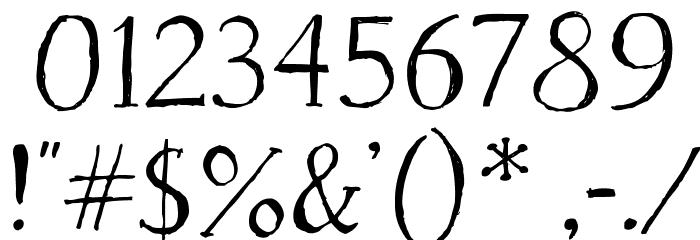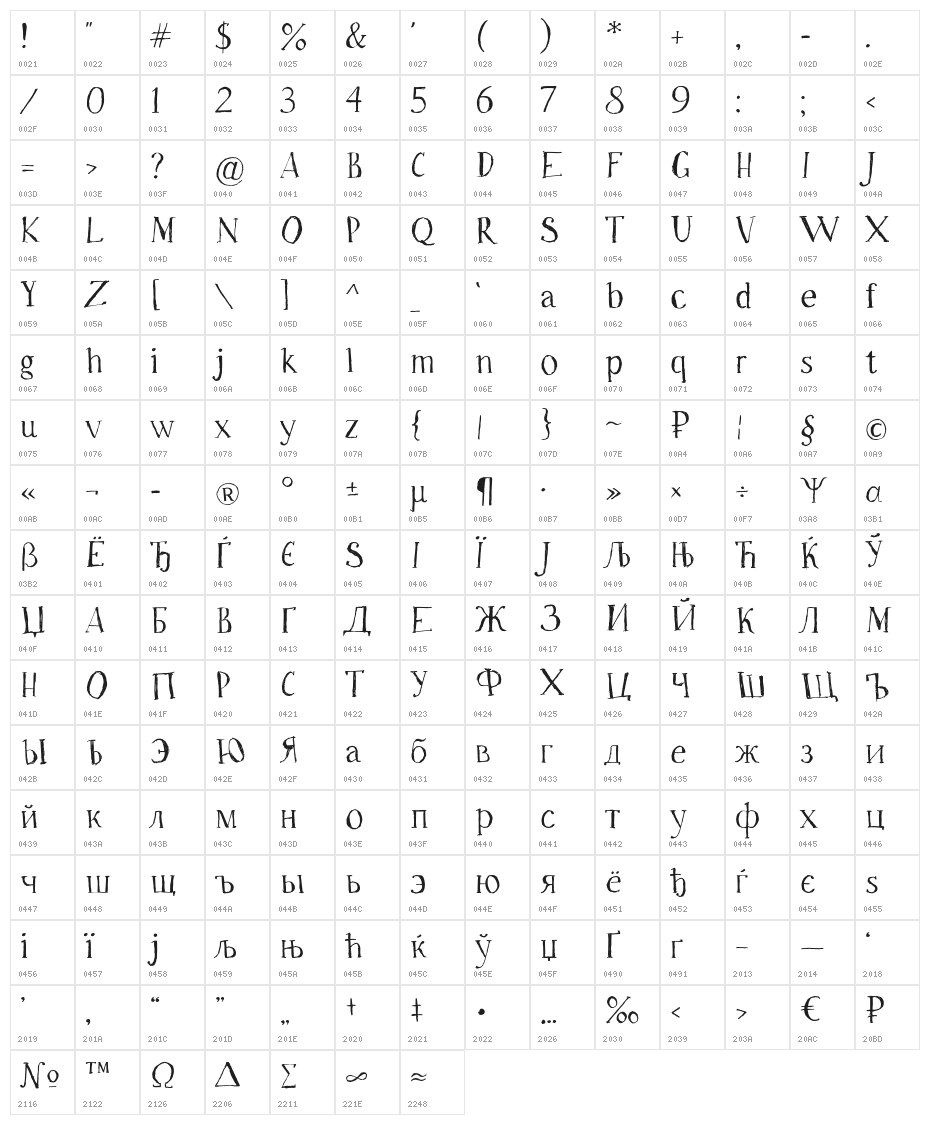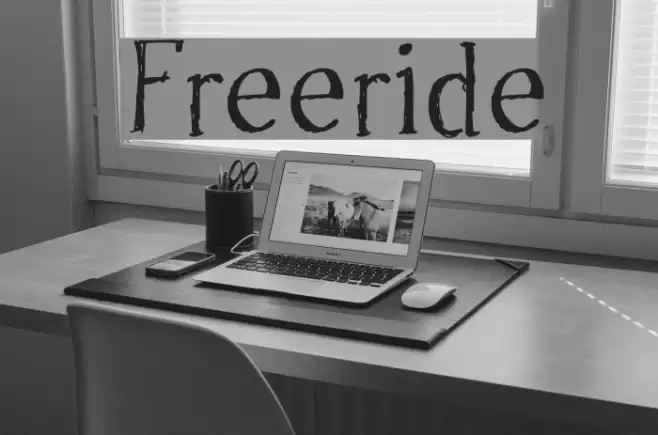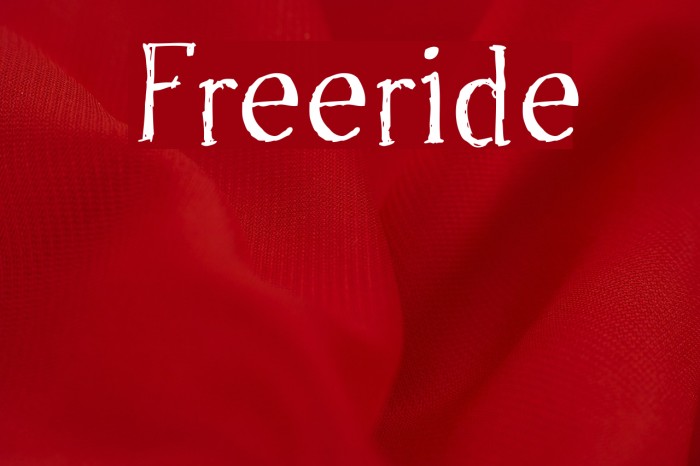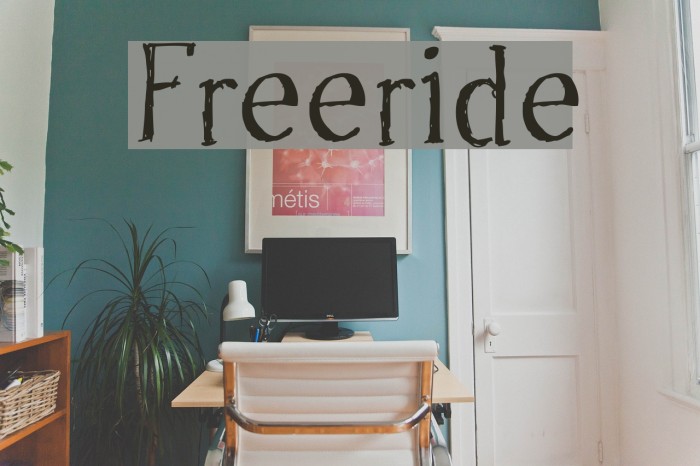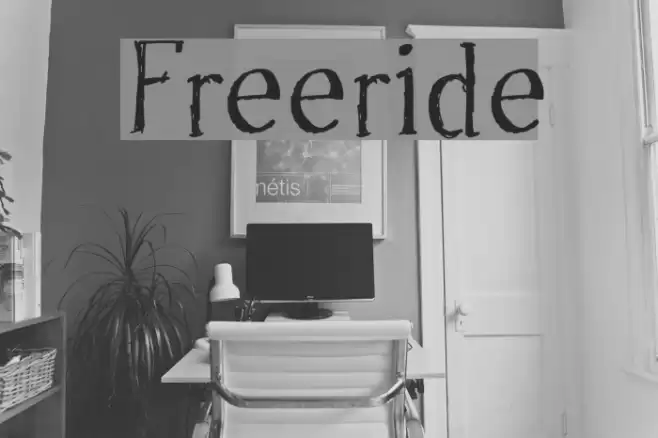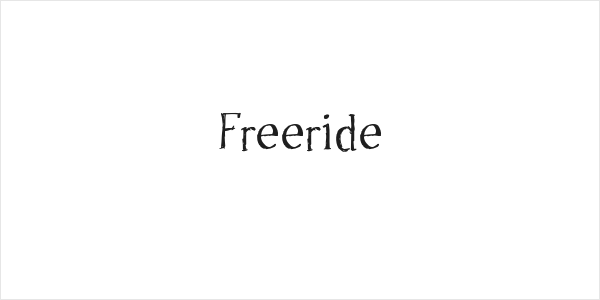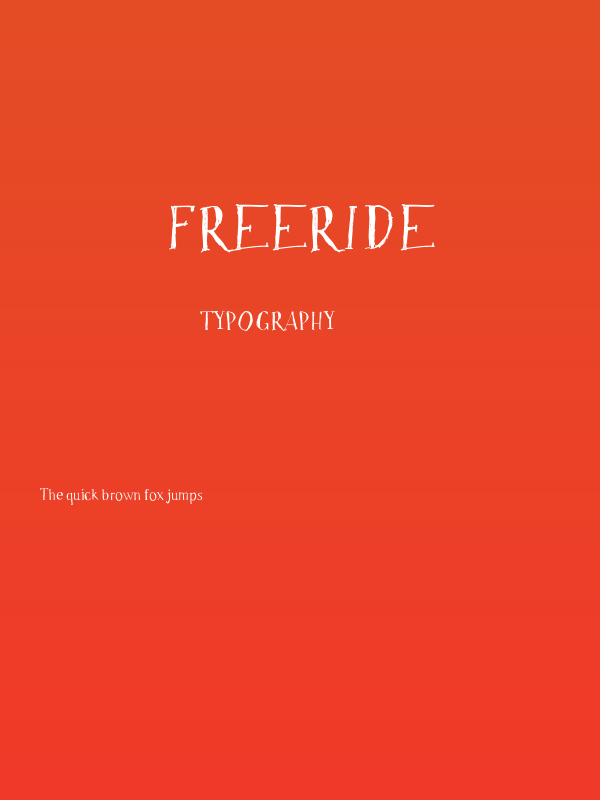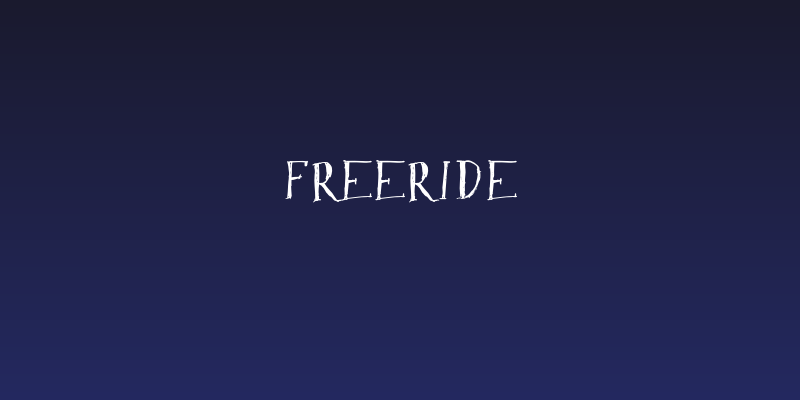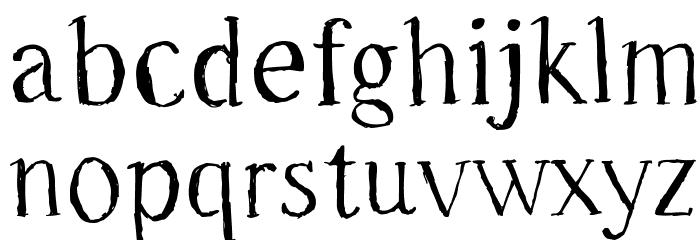
Freeride Font
Freeride Description
This font exhibits a rugged, hand-drawn aesthetic with uneven strokes and a slightly distressed appearance. The characters have a natural, organic feel, as if they were sketched with a brush or pen. The uppercase letters are bold and prominent, while the lowercase letters maintain a consistent style with a slightly narrower form. The numbers and special characters follow the same artistic approach, adding to the font's cohesive look. This style is ideal for projects that require a touch of authenticity and creativity, such as artistic posters, album covers, or branding for artisanal products.
| Proposed Projects | Ideal for artistic posters, album covers, branding for artisanal products, and creative projects. |